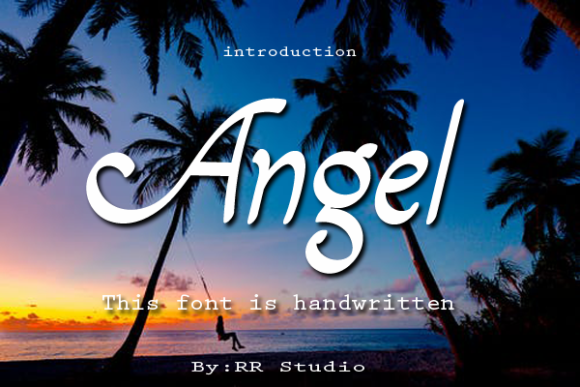
About Angel Font
Angel is a stylish and incredibly elegant handwritten font. It looks stunning on wedding invitations, thank you cards, quotes, greeting cards, logos, business cards and every other design which needs a customized touch.